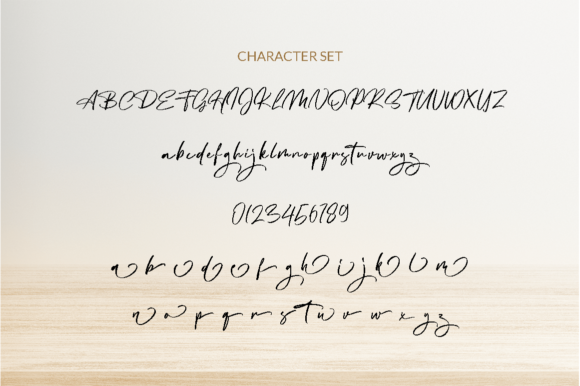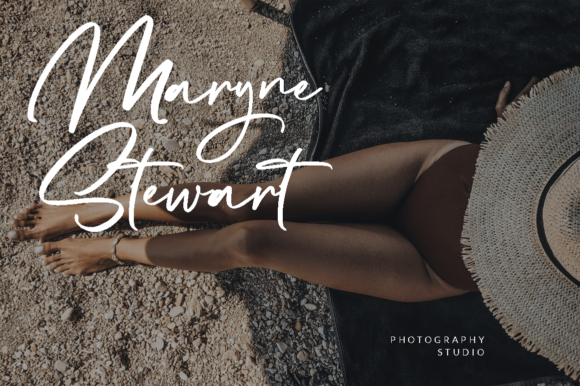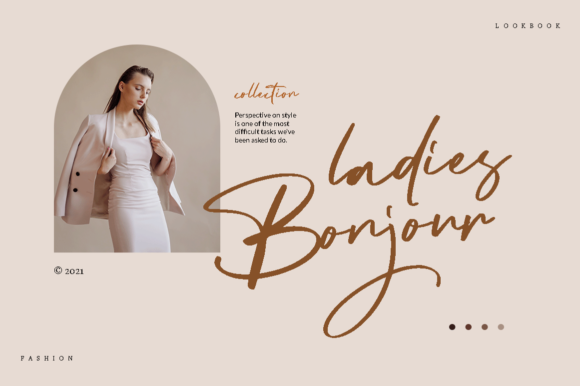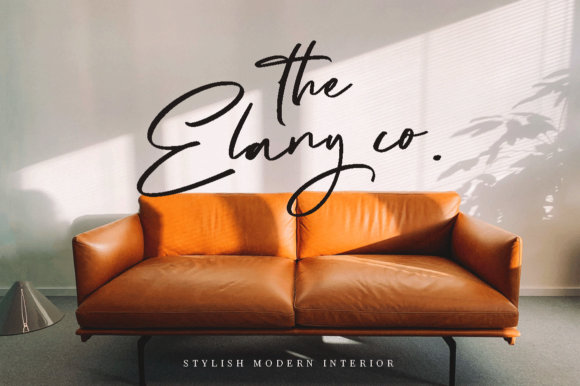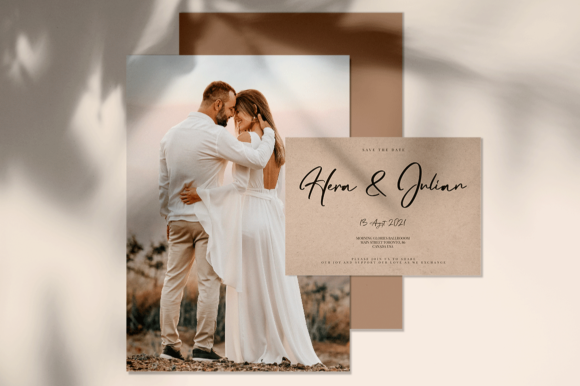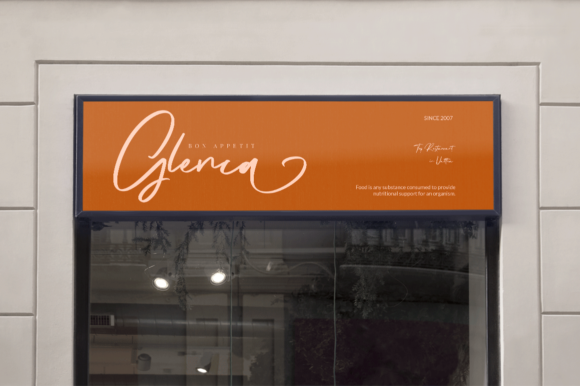
Introducing Adritany Font: The Epitome of Elegance and Sophistication
In the realm of typography, few fonts manage to strike a balance between elegance and laid-back charm. Adritany Font is one such gem that has captured the hearts of designers and crafters alike with its unique blend of sophistication and refreshingly casual vibe. In this article, we’ll delve into the world of Adritany, exploring its features, benefits, and the creative possibilities it offers.
The Genesis of Adritany Font
Adritany is a meticulously crafted script font designed to infuse your designs with a touch of elegance and class. Its creation was driven by the need for a beautiful and refreshing typographic solution that could cater to a wide range of design requirements. Whether you’re working on a branding project, crafting invitations, or designing merchandise, Adritany promises to elevate your work with its distinctive charm.
Key Features of Adritany Font
- Lovely and Laid-Back Script: Adritany boasts a script style that is both lovely and laid-back, making it perfect for projects that demand a touch of sophistication without appearing too formal.
- Elegance and Class: The font exudes an air of elegance and class, suitable for high-end branding, luxury product packaging, and exclusive event invitations.
- PUA Encoded: One of the standout features of Adritany is its PUA (Private Use Area) encoding. This means that accessing the font’s amazing glyphs and ligatures is incredibly straightforward, allowing designers to unleash their creativity without any technical hassles.
- Versatility: Adritany’s versatile design makes it suitable for a wide array of applications, from digital platforms like websites and social media graphics to print materials such as brochures, posters, and business cards.
Adritany Font offers a plethora of benefits for designers and crafters, making it a valuable addition to their typographic arsenal.
- Time-Saving: With Adritany, designers can save valuable time that would otherwise be spent on customizing and fine-tuning the font. The PUA encoding and extensive glyph library mean that you have everything you need at your fingertips.
- Enhanced Creativity: The unique glyphs and ligatures in Adritany open up new creative avenues for designers. You can experiment with different combinations to create visually striking text arrangements that capture attention and convey your message effectively.
- Consistency Across Projects: Using a consistent font across your projects helps in building a strong brand identity. Adritany, with its distinctive style, can become a part of your brand’s visual signature, making your designs instantly recognizable.
How to Use Adritany Font Effectively
To make the most of Adritany, here are some tips on how to integrate it into your design workflow:
- Pairing: Experiment with pairing Adritany with complementary fonts to create visual interest. A combination of script and sans-serif fonts often yields striking results.
- Hierarchy: Utilize the font’s various weights and styles to establish a clear hierarchy in your design. This ensures that your message is conveyed clearly and engagingly.
- Color: Don’t forget the power of color. Adritany’s elegance can be further accentuated by choosing a color palette that resonates with your brand or design theme.
Adritany Font stands out in the crowded world of typography with its unique blend of elegance, class, and laid-back charm. Its PUA encoding, coupled with a rich library of glyphs and ligatures, makes it an invaluable resource for designers and crafters looking to infuse their projects with a touch of sophistication. Whether you’re aiming to create stunning brand visuals, eye-catching advertisements, or beautiful art pieces, Adritany is poised to become your go-to script font. Embrace the elegance and creativity that Adritany offers, and watch your designs transform into captivating visual experiences.